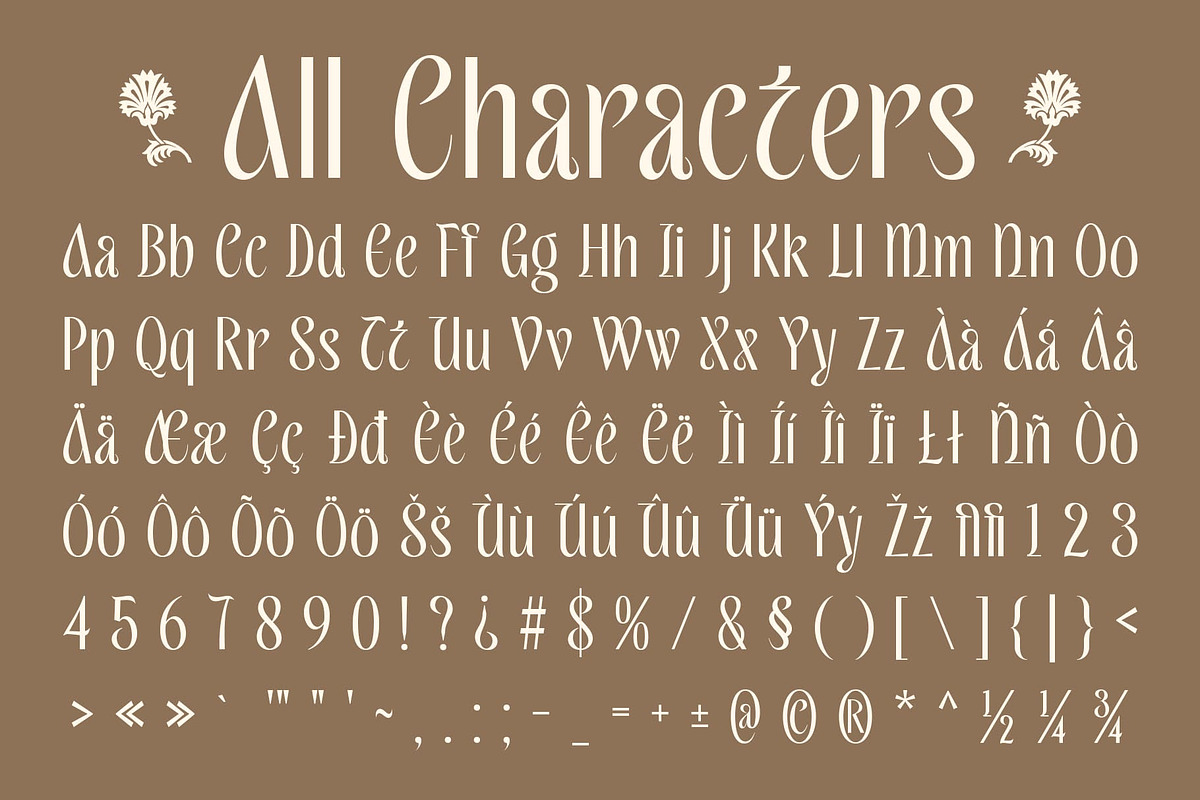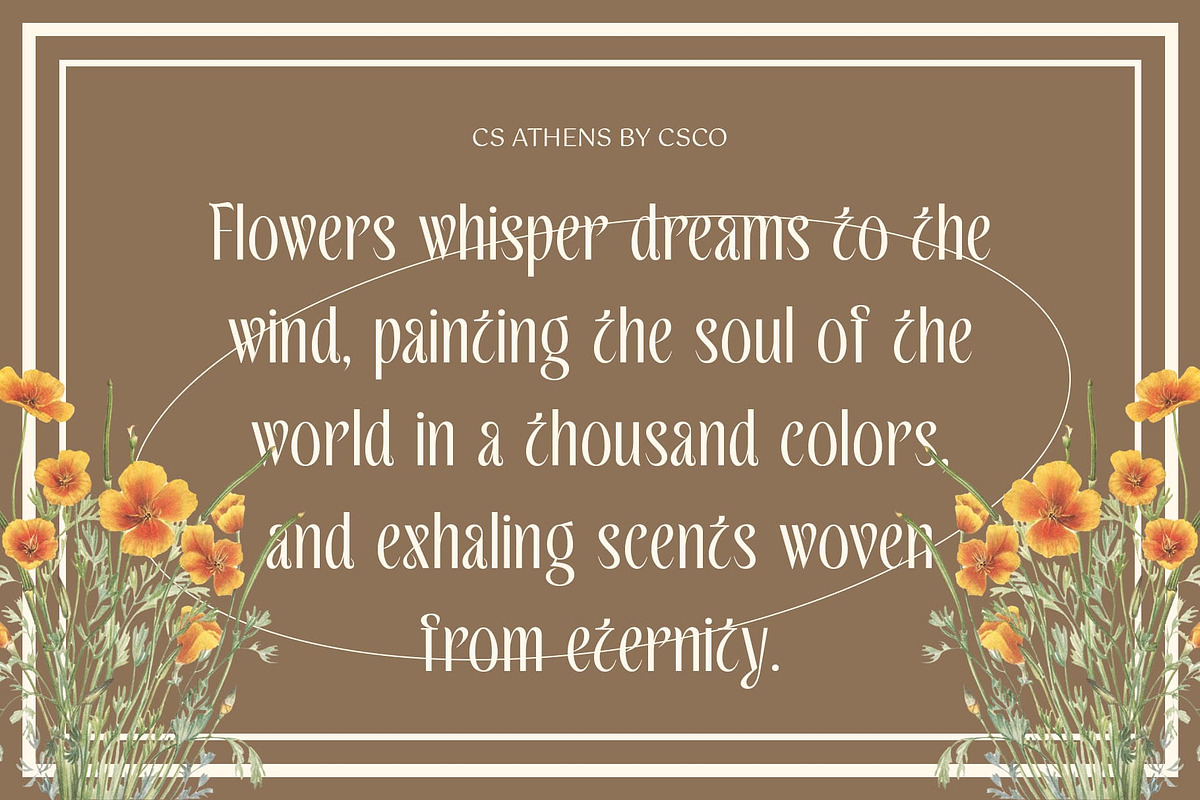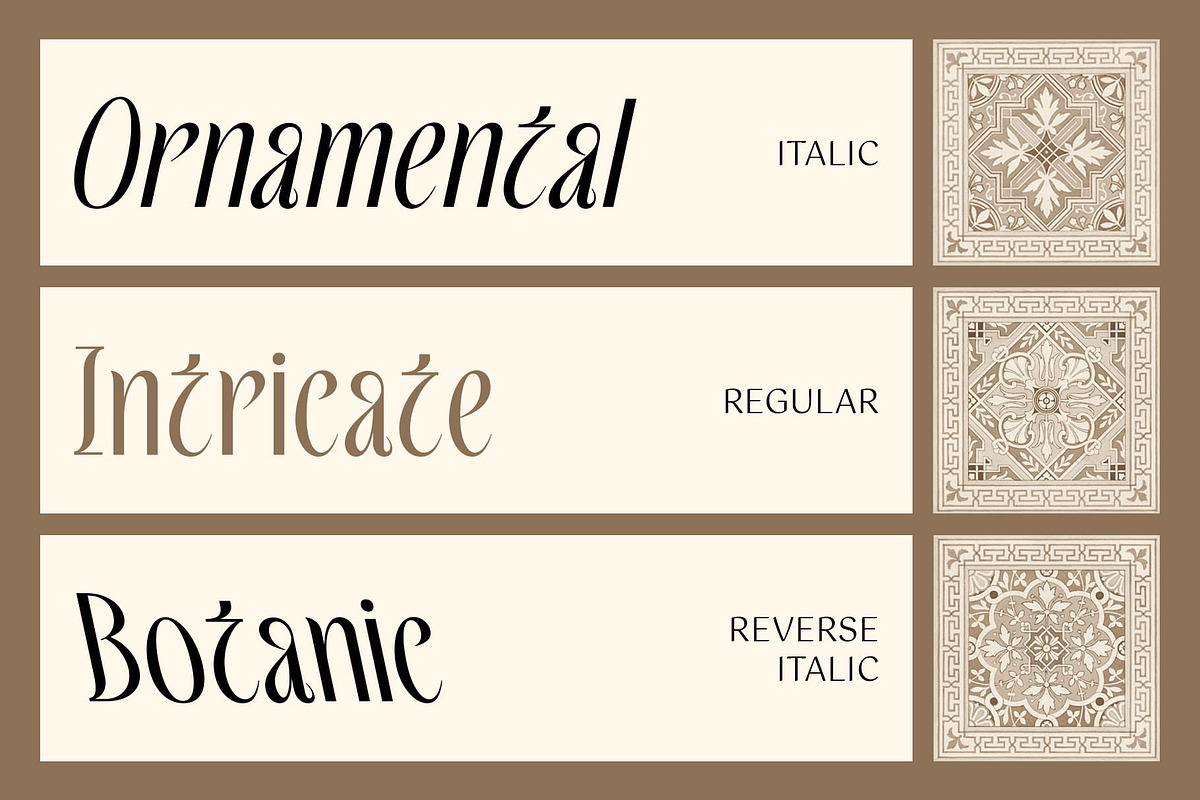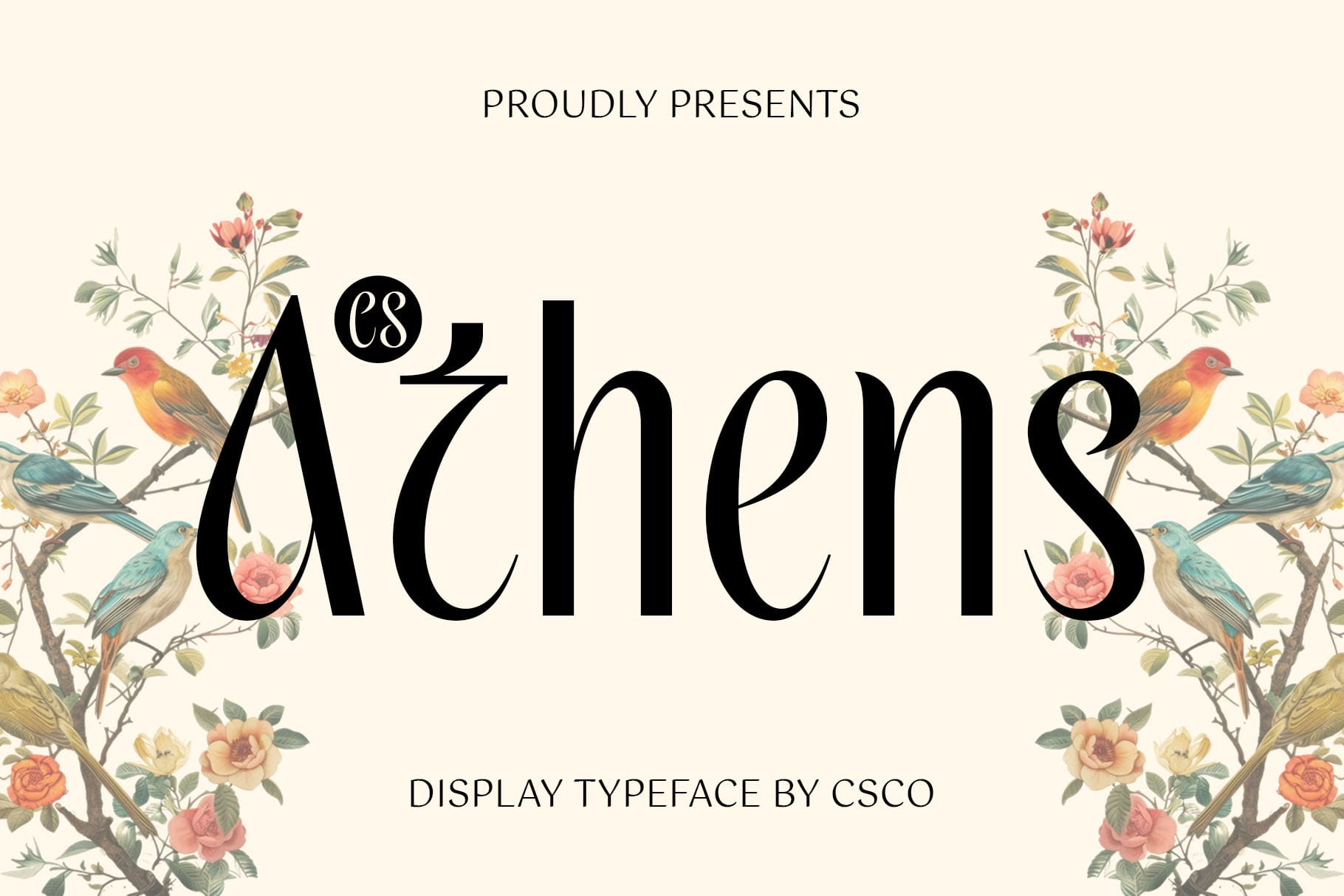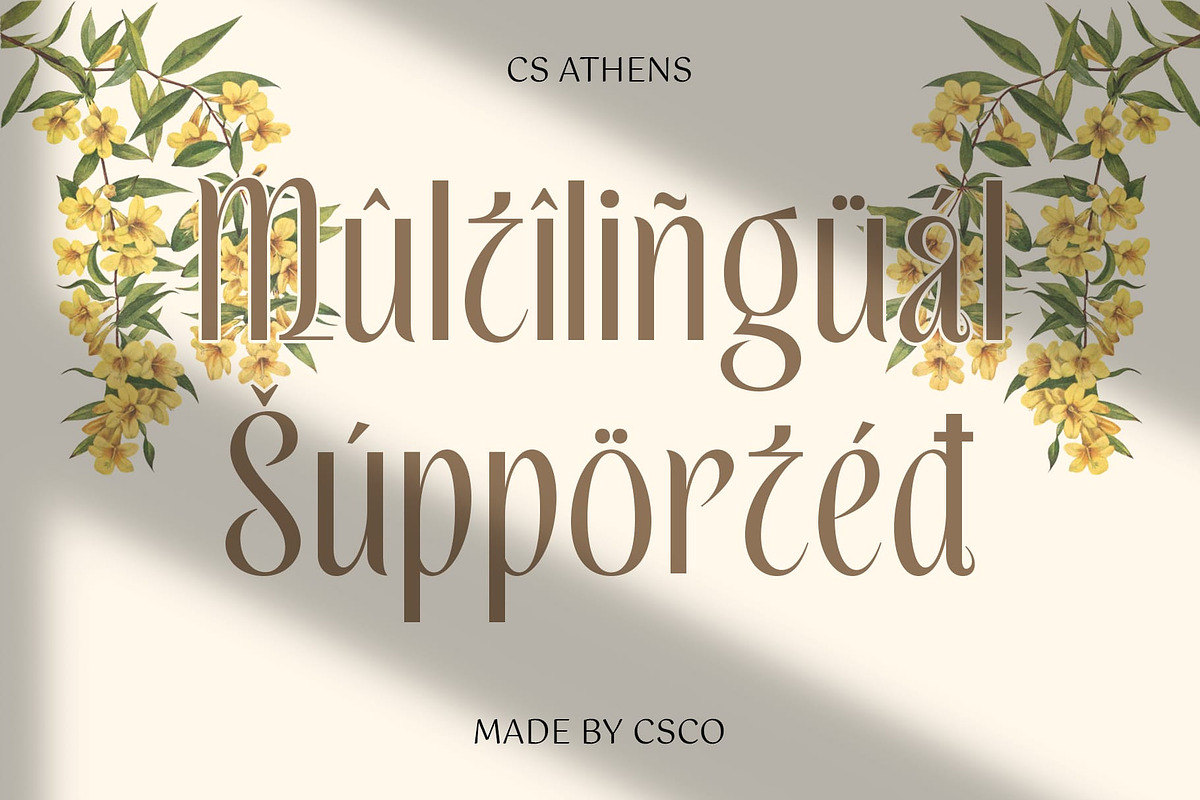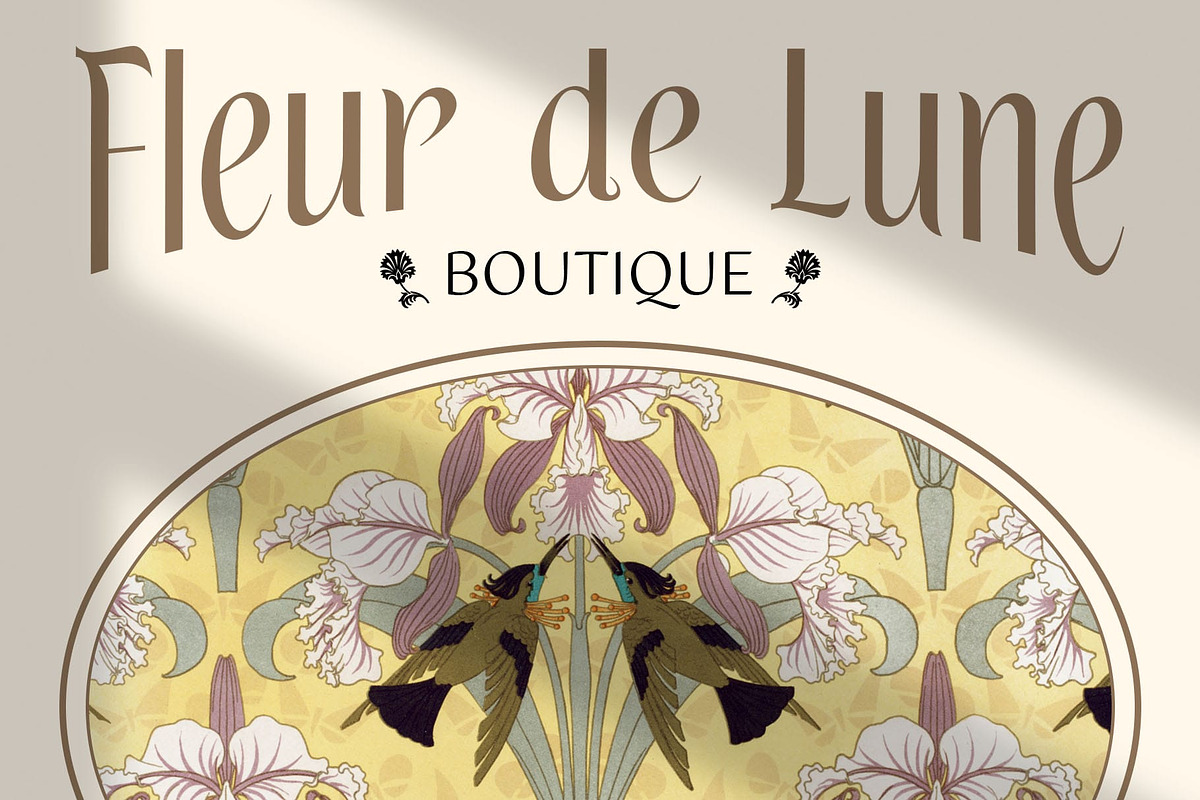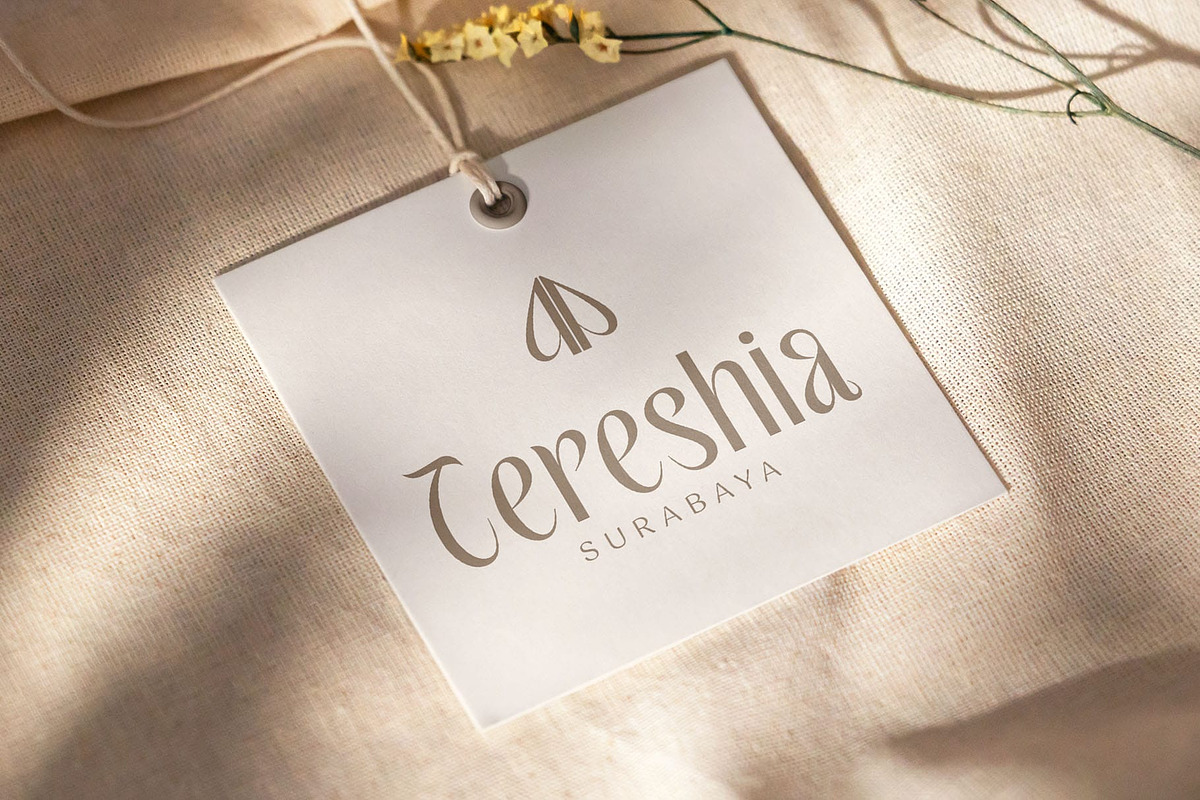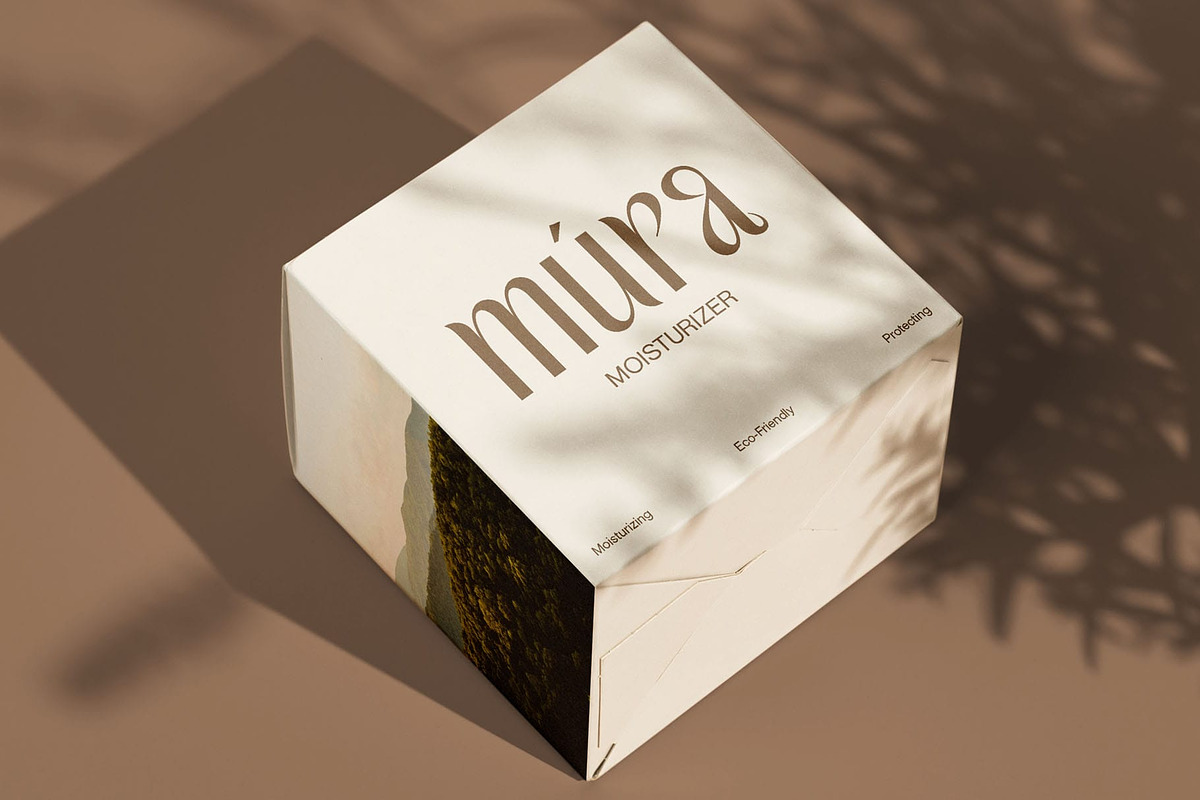
CS Athens – Elegant Font
CS Athens – Elegant Font: Timeless Grace and Sophistication
Modern Display Font with Elegance CS Athens is a modern display font designed to exude sophistication, grace, and luxury. With its sleek letterforms, balanced proportions, and refined aesthetics, this font captures the essence of elegance while maintaining a contemporary feel. Whether used in branding, editorial design, or formal invitations, CS Athens delivers a touch of class and professionalism, making it an essential choice for designers aiming for a high-end visual impact.
Soft Contrast for a Luxurious Look Featuring soft contrast between strokes, CS Athens creates a delicate yet striking presence in any composition. The gentle transitions between thick and thin lines add a sense of fluidity and refinement, giving the typography a smooth and polished finish. CS Athens’ clean yet sophisticated design makes it the perfect choice for exclusive branding. Whether for fashion labels, luxury products, or elegant business identities, this font enhances the prestige of any visual presentation.
Ideal for Elegant Invitations and Stationery With its timeless grace, CS Athens is the perfect choice for wedding invitations, event branding, and elegant business cards. The font’s delicate letterforms bring an air of sophistication to any design, making it ideal for creating beautifully crafted stationery.
- CS Athens Regular
- CS Athens Italic
- CS Athens Reverse Italic